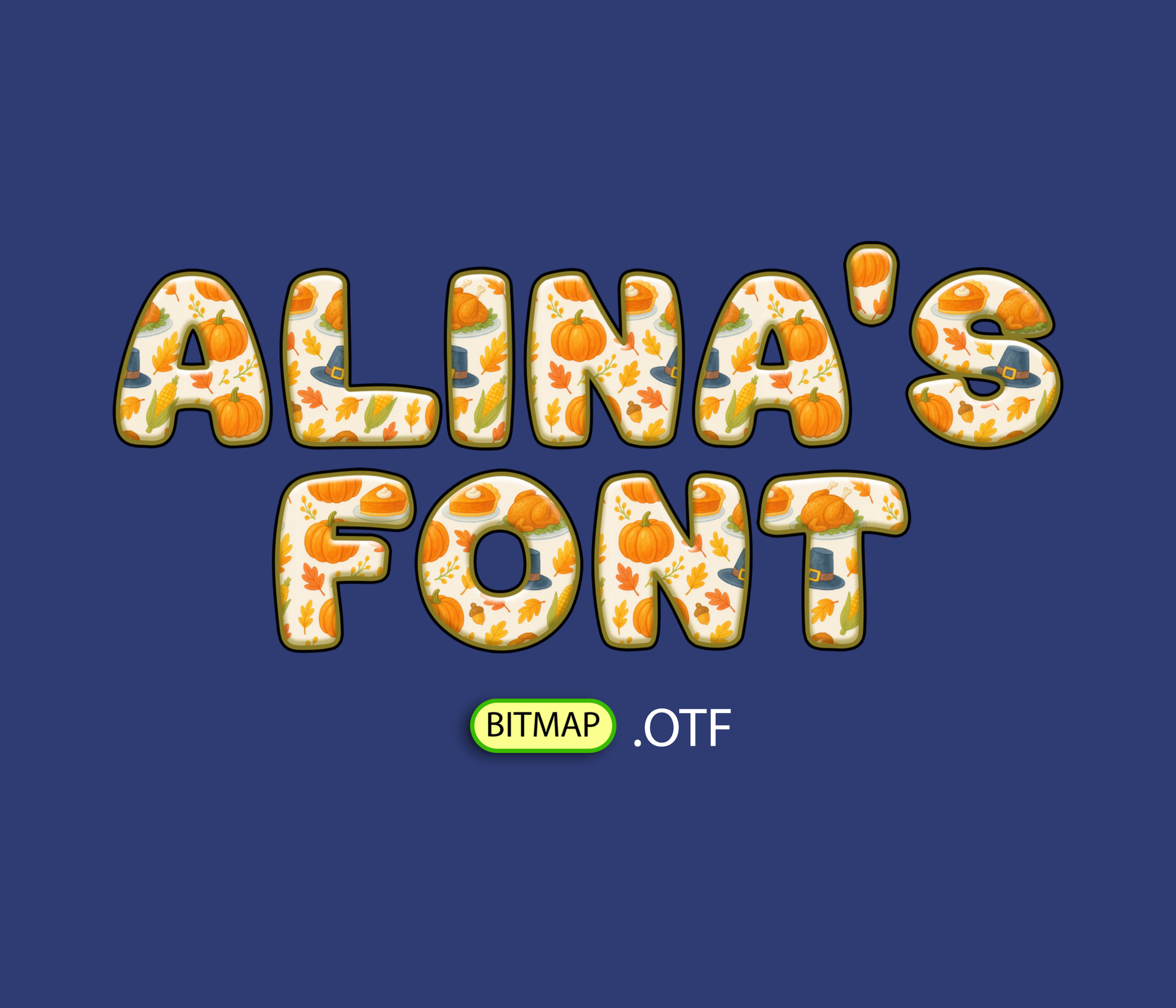
Thanksgiving Feast Typeface Textured
Step into the warm embrace of autumn's most cherished celebration with our Thanksgiving Feast Typeface, capturing the essence of family gatherings and bountiful harvests. Perfect for restaurant owners, event planners, greeting card designers, and creative professionals, this font brings the cozy, grateful spirit of November traditions to your projects. Create heartwarming signage, seasonal products, or digital content with the golden, rustic charm of pumpkin patches and cranberry bogs.
Our Thanksgiving Feast Typeface features rounded, harvest-inspired shapes and welcoming characters reflecting the abundant yet homey aesthetic of traditional autumn celebrations.
Ideal for:
- Restaurant Business: Create appealing menus, promotional materials, and seasonal signage for cafes, bakeries, and dining establishments celebrating harvest cuisine
- Event Design: Perfect for invitation cards, table decorations, and festive materials that capture the spirit of gratitude and family togetherness
- Digital Media: Enhance websites, blogs, and social media with warm headers and graphics that express seasonal joy and thankfulness
- Educational Content: Add authentic character to school materials, recipe cards, and promotional materials for community harvest events
- Personal Projects: Bring autumn charm to greeting cards, craft projects, and home decor inspired by the aesthetics of golden leaves and cozy fireplaces